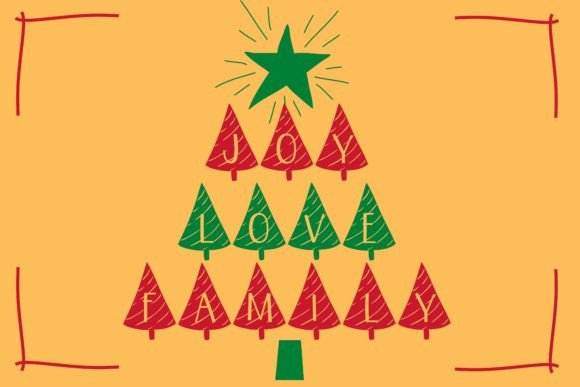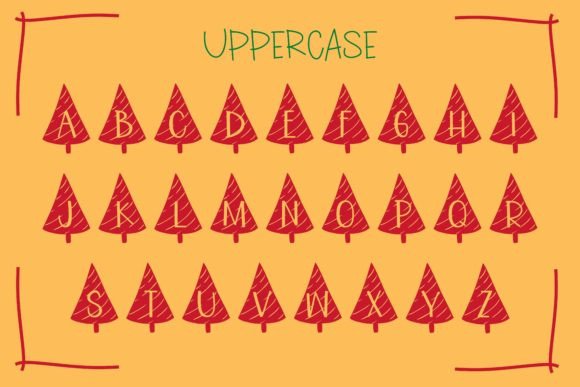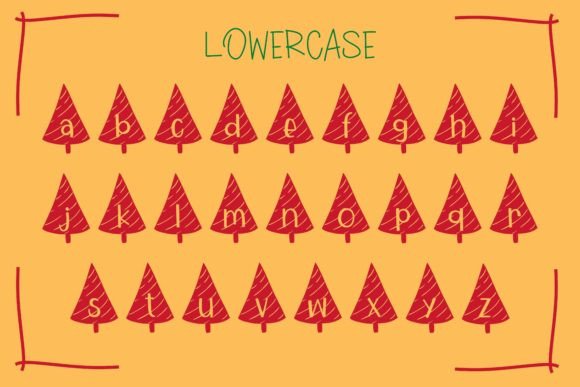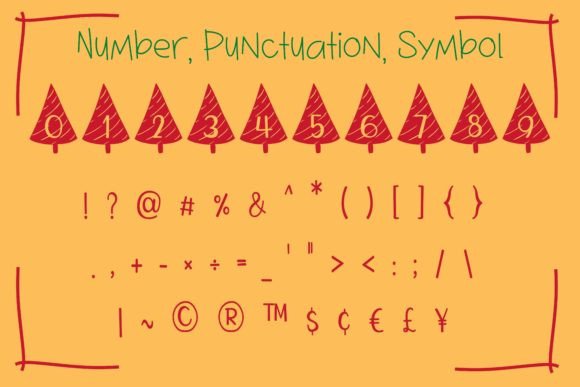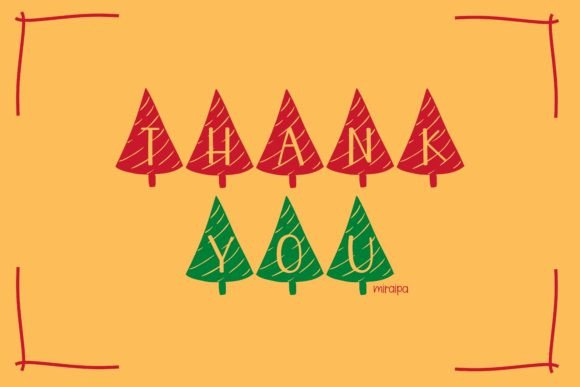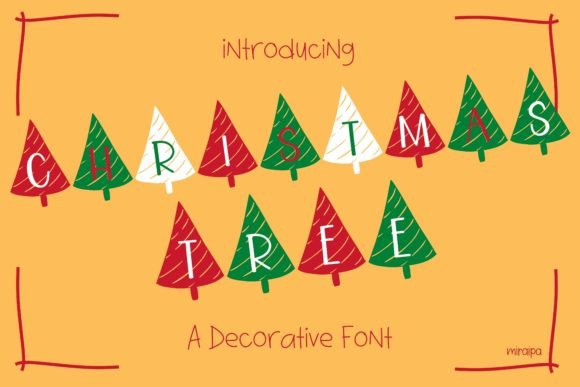
Deck the Halls with the Festive Christmas Tree Font
Are you looking for a font that captures the magic and joy of the holiday season? Look no further than the Christmas Tree font! This adorable decorative font is specifically designed to bring a cute and festive feel to your projects, making it perfect for designers, crafters, and anyone looking to add a touch of holiday cheer to their creations.
What is the Christmas Tree Font?
The Christmas Tree font is a unique and playful typeface that embodies the spirit of Christmas. With its whimsical design, this font is sure to add a dash of festive fun to any project. Whether you’re working on party decorations, invitations, posters, blogs, clothing, greeting cards, or social media posts, the Christmas Tree font is the perfect choice.
Uses for the Christmas Tree Font
The versatility of the Christmas Tree font makes it an excellent addition to any designer’s or crafter’s toolkit. Here are just a few ideas for how you can use this delightful font:
• Party Decorations: Create eye-catching party decorations, such as banners, garlands, and signs, that will make your holiday party stand out.
• Party Invitations: Design festive and fun party invitations that will get your guests in the holiday spirit.
• Posters: Create engaging and colorful posters for holiday events, sales, or promotions.
• Blogs: Add a touch of holiday cheer to your blog posts with the Christmas Tree font.
• Clothing: Design custom holiday-themed apparel, such as t-shirts, hoodies, or hats, with the Christmas Tree font.
• Greeting Cards: Create personalized and festive greeting cards for friends and family.
• Social Media Posts: Add a dash of holiday fun to your social media posts with the Christmas Tree font.
Why Choose the Christmas Tree Font?
With so many fonts to choose from, why should you choose the Christmas Tree font? Here are just a few reasons:
• Unique Design: The Christmas Tree font has a unique and playful design that will make your projects stand out.
• Friendly Feel: This font has a friendly and approachable feel that is perfect for holiday projects.
• Easy to Use: The Christmas Tree font is easy to use and can be adapted to a variety of projects.
Tips for Using the Christmas Tree Font
Here are a few tips for getting the most out of the Christmas Tree font:
• Experiment with Colors: Try pairing the Christmas Tree font with different colors to create a unique and festive look.
• Mix and Match: Combine the Christmas Tree font with other fonts to create a unique and eye-catching design.
• Use it Sparingly: Use the Christmas Tree font sparingly to add a touch of holiday cheer to your projects.
The Christmas Tree font is a fun and festive addition to any designer’s or crafter’s toolkit. With its unique and playful design, this font is perfect for adding a touch of holiday cheer to your projects. Whether you’re working on party decorations, invitations, posters, or social media posts, the Christmas Tree font is sure to bring your creations to life. So why wait? Add the Christmas Tree font to your library today and start creating your own festive and fun holiday projects!